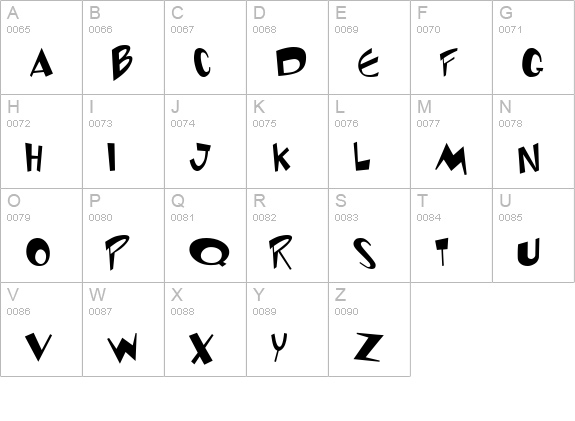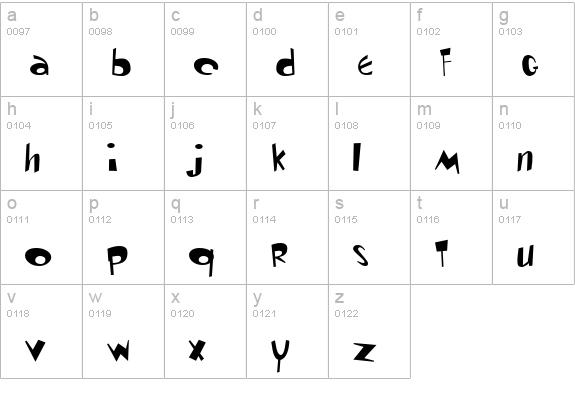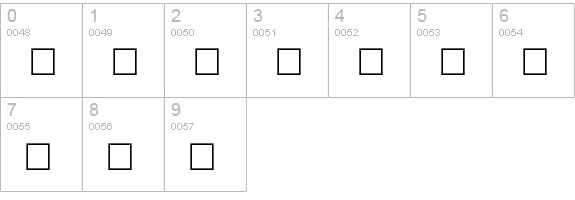
Toontime Regular Font Details
Toontime Regular is the standard, neutral variant in the Toontime typeface family \xE2\x80\x94 well suited to general body text, paragraphs, and standard typographic work.
Toontime Regular font is a delightful and playful typeface that will bring a touch of whimsy to any design project. With its charming and rounded letters, this font is perfect for adding a fun and friendly vibe to posters, logos, invitations, and more. Featuring a bold yet legible style, Toontime Regular font effortlessly captures the essence of childhood nostalgia and cartoonish charm. Its carefully crafted letterforms have a distinct personality that radiates joy and creativity, making it an ideal choice for designs aimed at capturing the attention of both children and the young at heart. But what makes Toontime Regular font even more appealing is that it is available for free. That's right, you can freely download this font at FontsMarket.com, where it is easily accessible to all designers and creatives. Whether you're a professional graphic designer or a hobbyist looking to add a touch of playfulness to your personal projects, Toontime Regular font is just a click away. Not only does Toontime Regular font offer a wide range of creative possibilities, but it also ensures legibility and versatility. Its well-defined letterforms and balanced proportions make it suitable for various design applications, from branding and advertising to web design and packaging. So why wait? Embrace the whimsical world of Toontime Regular font and let your imagination run wild. Download it for free at FontsMarket.com and infuse your designs with a dose of joyful charm.